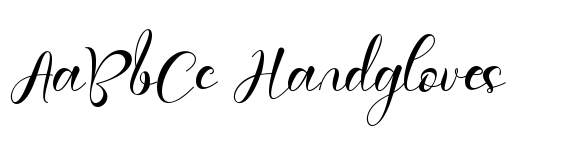
Dabistha
by Yoga Letter
The Dabistha Font Family was designed by Isroni Yoga Prasetya and published by Yoga Letter. Dabistha contains 1 styles.
"Dabistha" is a beautiful handwritten font with butterfly decoration on the alternate letters. This font is perfect for Valentine's Day, weddings, engagements, Christmas, stickers, posters, banners, and more. Equipped with uppercase letters, lowercase letters, numerals, punctuation, swash, titling, uppercase alternates, ligatures, and multilingual support
Designers: Isroni Yoga Prasetya
Publisher: Yoga Letter
Foundry: Yoga Letter
Design Owner: Yoga Letter